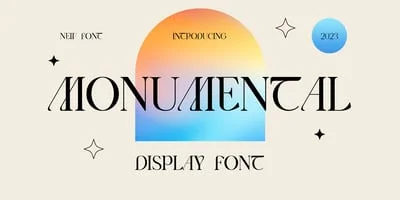
Monumental Font
The Monumental Font excels in various design applications including memorial monument inscriptions, grand architectural signage, prestigious institutional branding, historical commemoration materials, governmental ceremonial documents, epic movie poster design, distinguished award certificates, monumental sculpture lettering, heritage foundation communications, and majestic cultural projects that demand eternal grandeur and architectural magnificence.
What makes the Monumental Font exciting is its embodiment of permanent significance and architectural grandeur through letterforms that capture the essence of stone-carved inscriptions and monumental construction. This typeface demonstrates exceptional gravitas through carefully crafted characters that suggest the weight of history, the permanence of stone carving, and the enduring impact of truly significant achievements. The font's monumental personality makes it perfect for institutions and projects seeking to communicate lasting importance, historical significance, and the kind of permanent legacy that deserves to be carved in stone through typography that literally monumentalizes content with architectural dignity.
The Monumental Font family typically includes majestic weight variations that enhance the architectural aesthetic, featuring bold capitals with stone-carved characteristics and extended character sets optimized for commemorative applications. These family options often include classical proportions, memorial symbols, and monumental decorative elements that provide designers with comprehensive tools for creating authentically grand typography that honors the tradition of architectural lettering and permanent commemoration.
Memorial designers and prestigious institutions consistently choose Monumental Font for projects requiring typography that establishes permanent significance and architectural authority. This typeface delivers exceptional performance in commemorative design, institutional branding, and ceremonial communications where conveying lasting importance and demonstrating respect for historical gravity is essential for dignified presentation. The font's monumental character makes it particularly effective for governmental and memorial applications. Download Monumental Font today to access this magnificent typeface that transforms communications with its architectural grandeur and monumental sophistication, creating compelling experiences that honor the greatest achievements of human civilization while establishing contemporary projects within the continuum of historical significance and permanent cultural legacy.